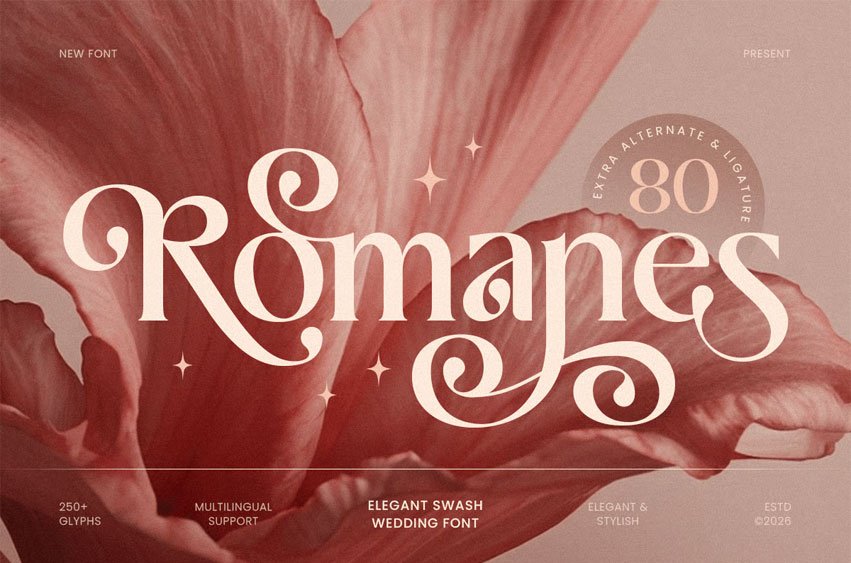
Romanes Font is an elegant swash wedding font crafted to bring romance, grace, and timeless beauty to your typography. With flowing strokes, decorative swashes, and a refined handwritten rhythm, this typeface creates a soft luxurious tone that feels intimate, elegant, and instantly memorable.
Designed for wedding-focused typography, Romanes works beautifully across invitations, save-the-dates, monograms, logos, venue signage, menu cards, packaging, labels, social media announcements, and romantic editorial layouts. Its swash details add a graceful flourish that makes every word feel custom, expressive, and beautifully styled across both print and digital formats.
Whether you’re creating bridal branding, luxury wedding stationery, event décor, or elegant promotional visuals, Romanes provides a graceful script foundation that makes your typography feel polished, heartfelt, and unforgettable.
Inspiration Behind Romanes
Romanes is inspired by classic calligraphy and luxurious wedding scripts—where flowing swashes, balanced rhythm, and delicate movement express love and sophistication. The design focuses on elegant curves and romantic harmony to support bridal branding and timeless wedding visuals with a premium, graceful presence.
Romanes Font Features:
- Elegant script letterforms with decorative wedding swashes
- Perfect for invitations, monograms, logos, and romantic headlines
- Graceful flow for a custom handwritten appearance
- Uppercase, lowercase, numerals, and punctuation included
- OpenType features for polished professional typesetting
Perfect For
- Wedding invitations, save-the-dates, RSVP cards, and stationery suites
- Bridal branding, luxury event planners, and romantic identity systems
- Logos, wordmarks, monograms, and signature typography
- Signage, menu cards, gift tags, packaging, and elegant labels
- Social media announcements, websites, and wedding marketing assets
Celebrate love with elegance through Romanes—a romantic swash wedding font made for timeless bridal design.